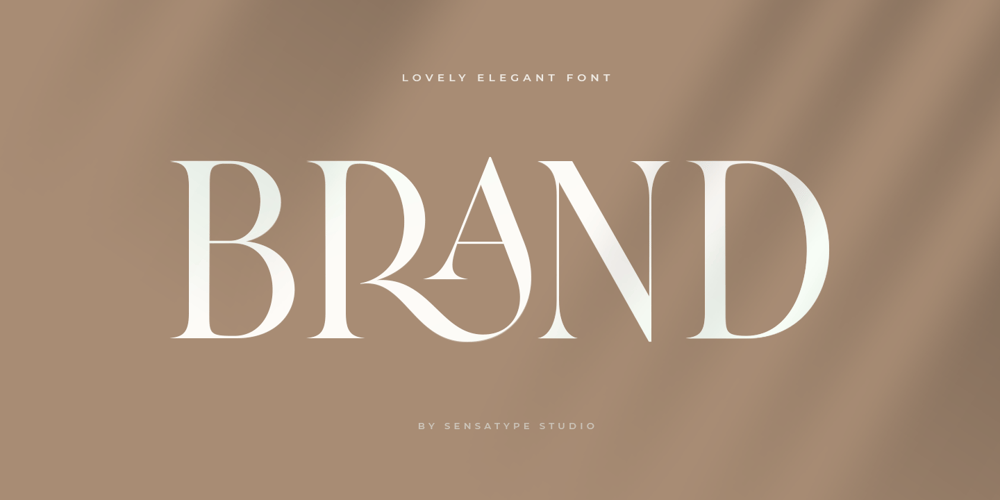
Brand SS
Brand SS font
Brand SS Font Family was designed by Zamroni Hamzah and published by Sensatype Studio. Brand SS contains 1 styles and family package options. Brand is a lovely elegant font for branding and logo design.Based on our experience as a graphic designer who works for a lot of companies, we often are requested to design a logo in a unique style but with an elegant shape. So, we try to brainstorming and create this font to make the idea is going out. This is perfect for BRANDING and LOGO DESIGN. You will get classy, elegant, and certainly unique logos with this font.Brand is also included full set of: All uppercase letters multilingual characters numerals punctuation ligatures collection *) ALL LIGATURE CHARACTERS CAN BE ACCESS USING LOWERCASE TYPE (for example: r+a)Wish you enjoy our font and if you have a question, don’t hesitate to drop message & I’m happy to help 🙂